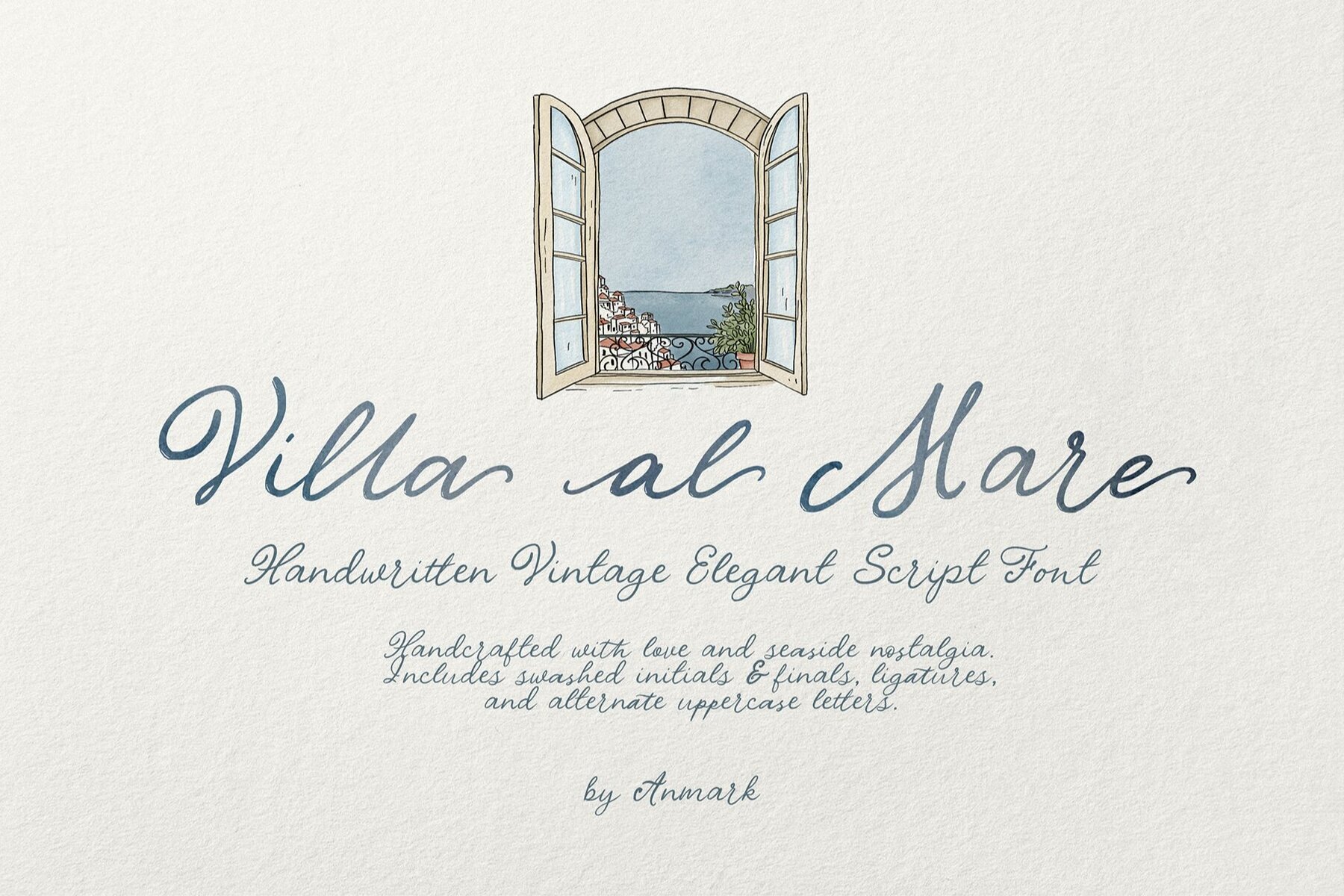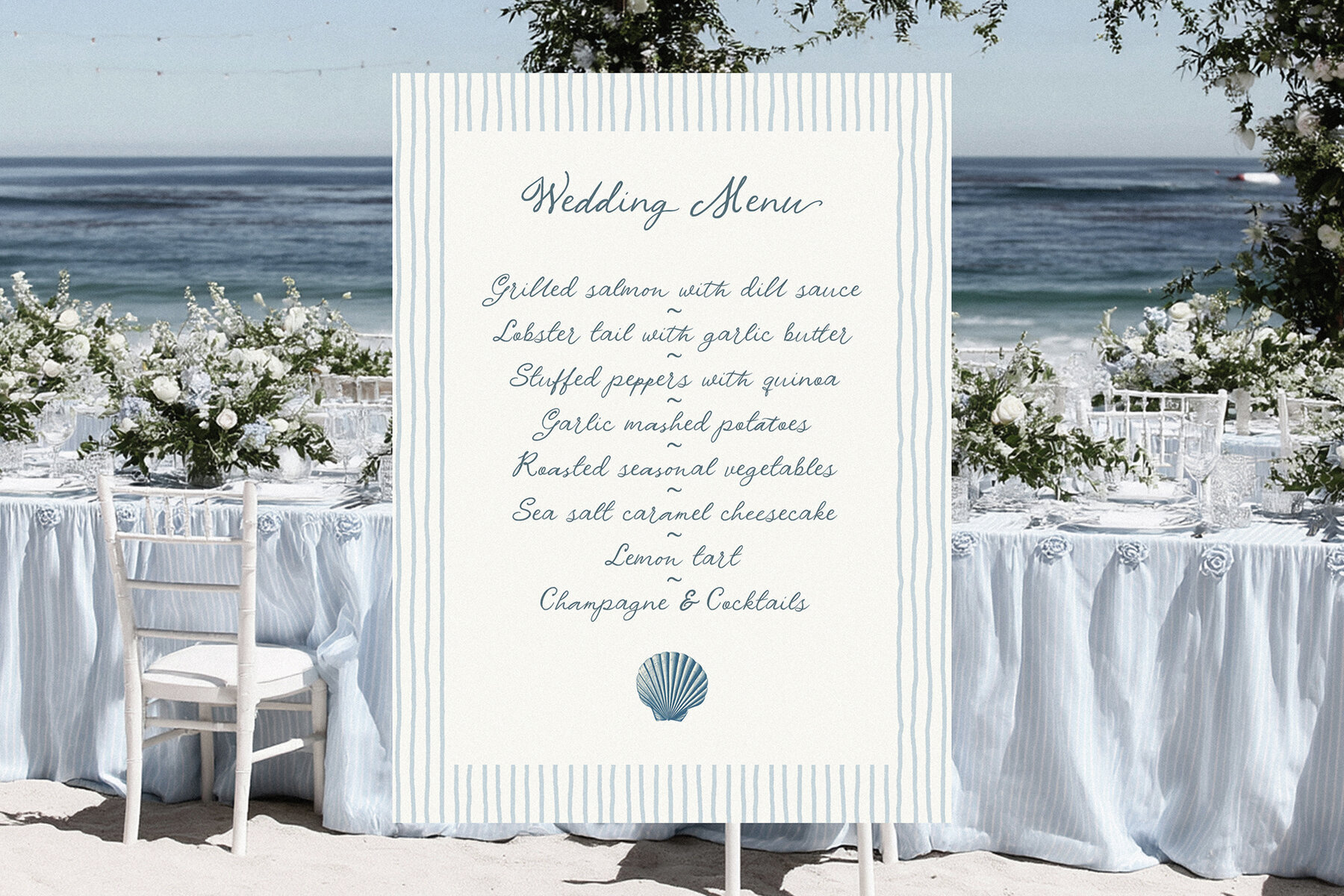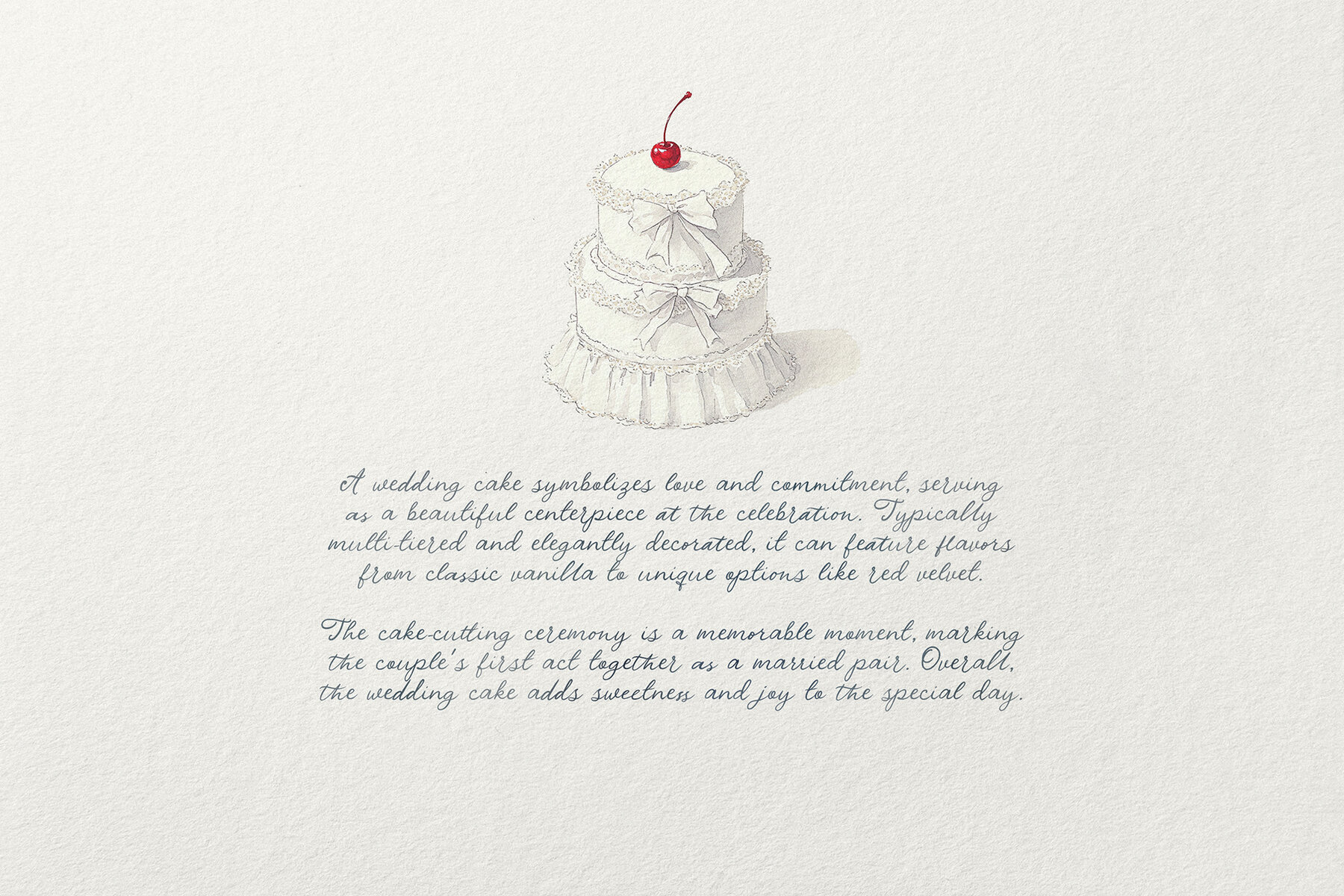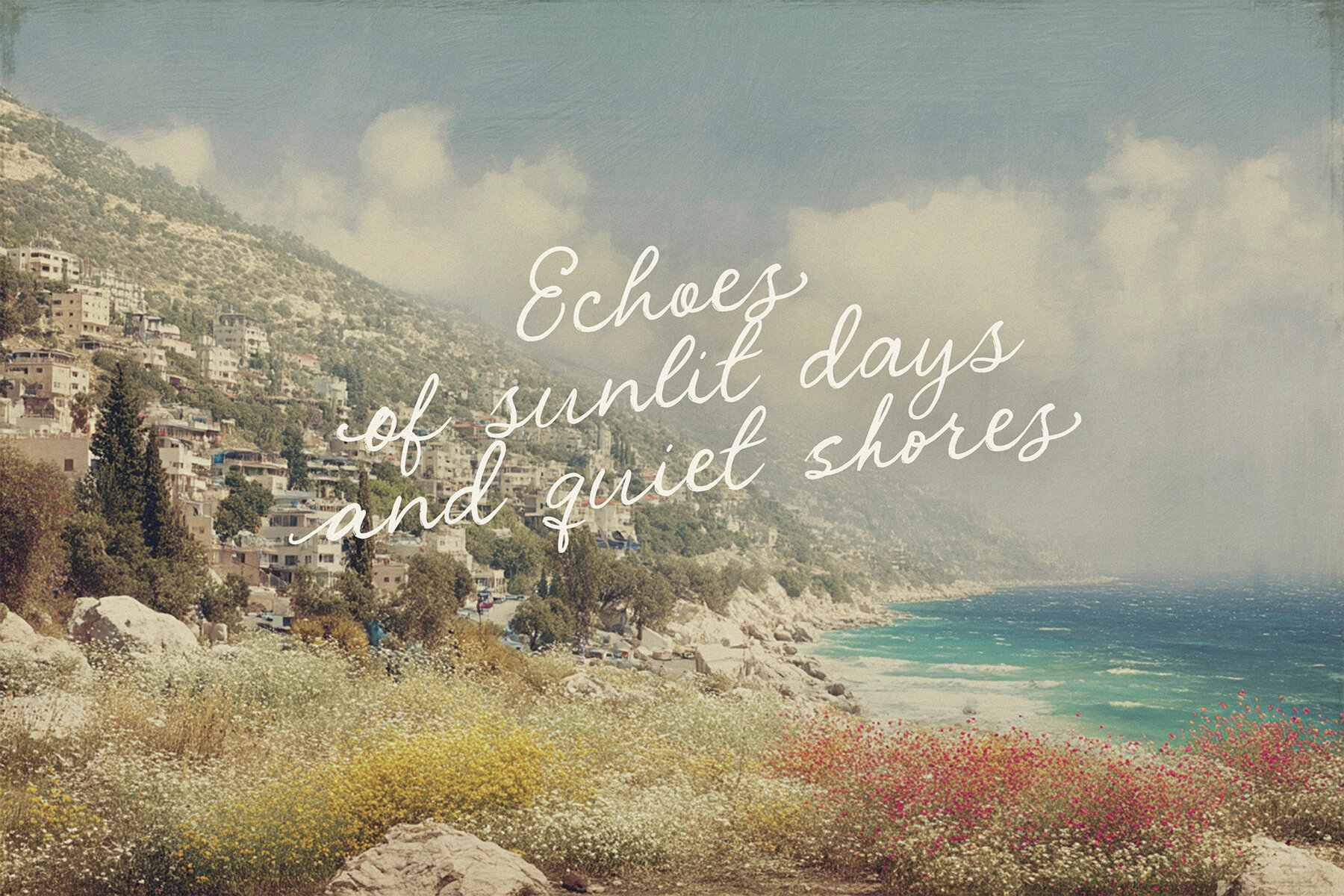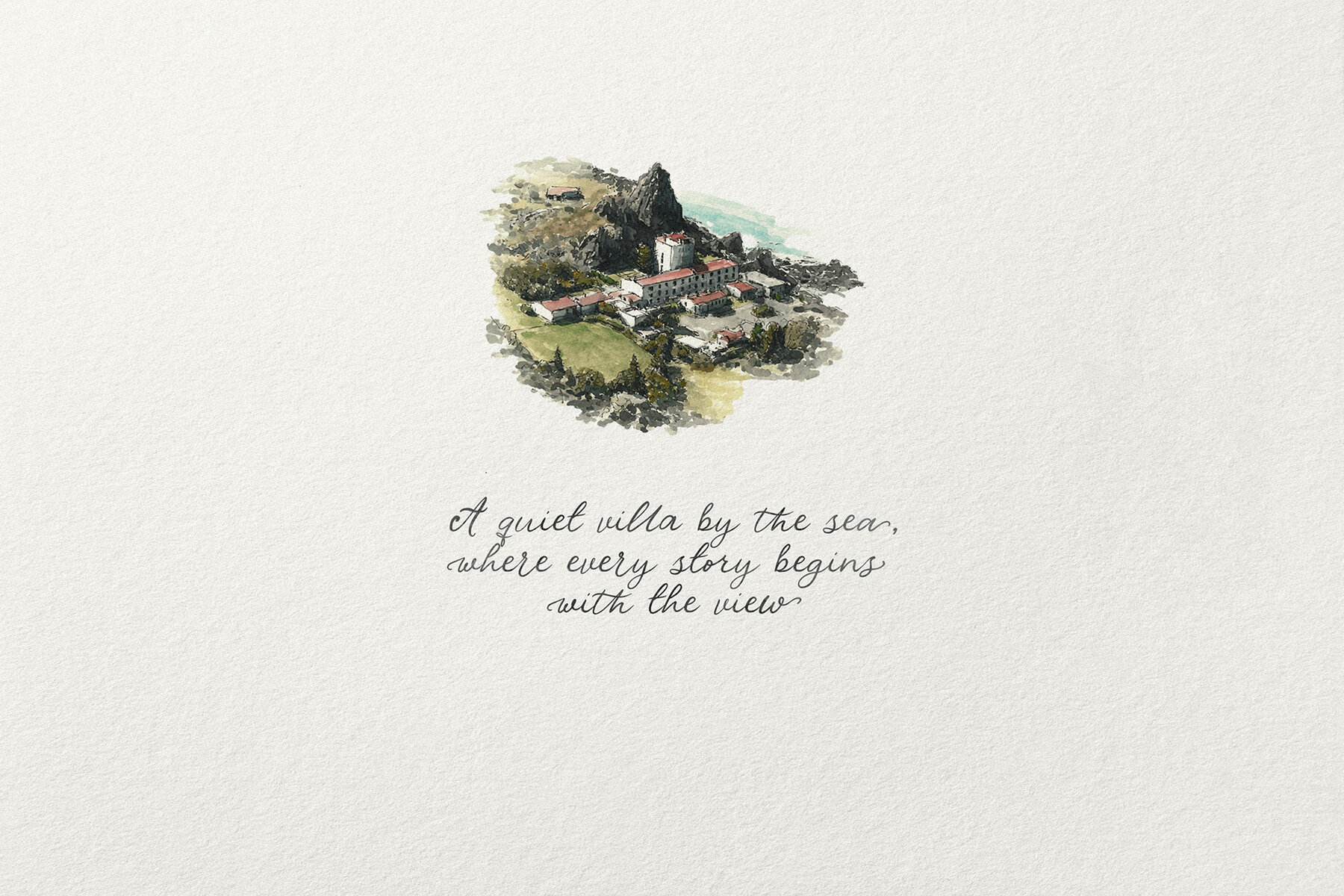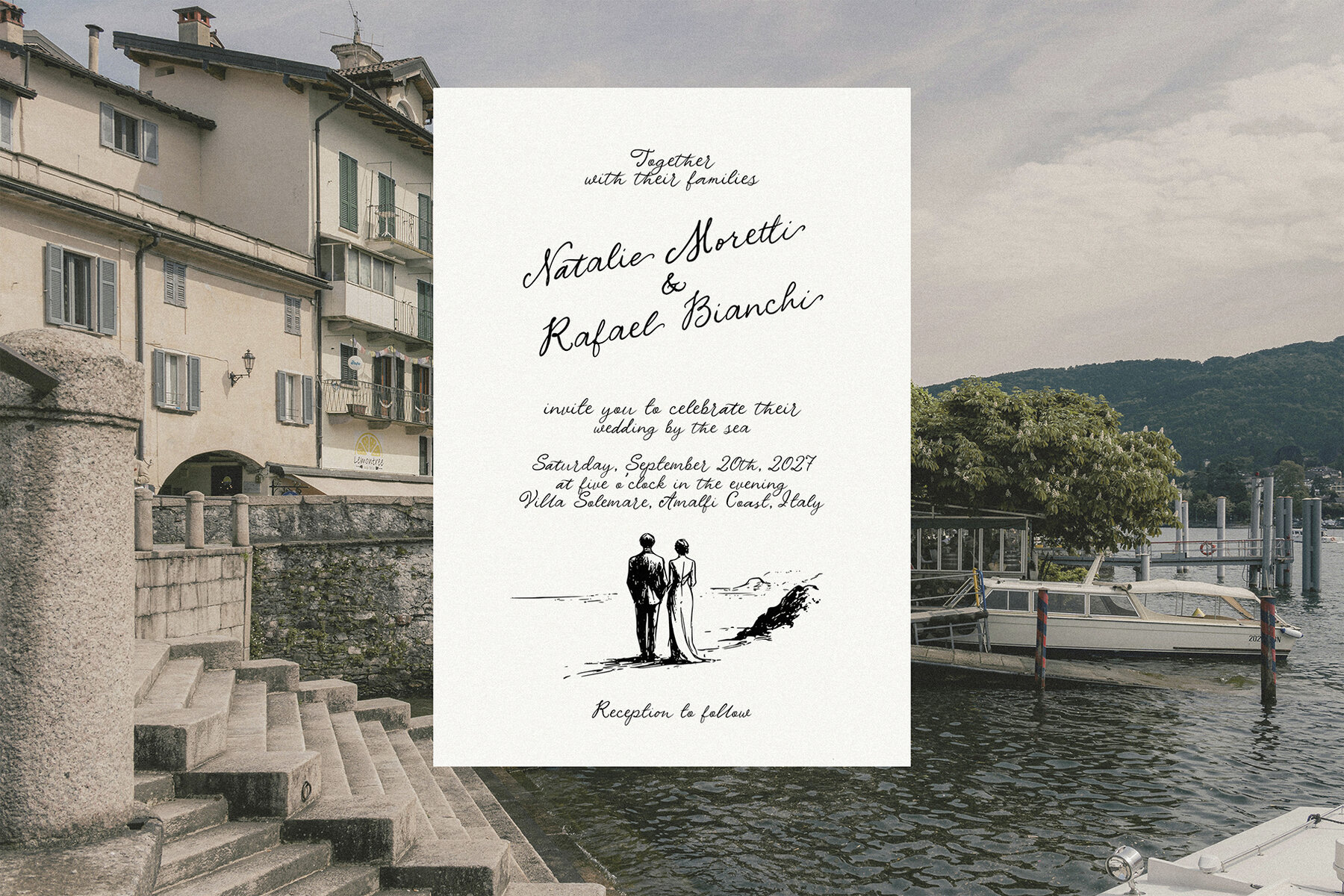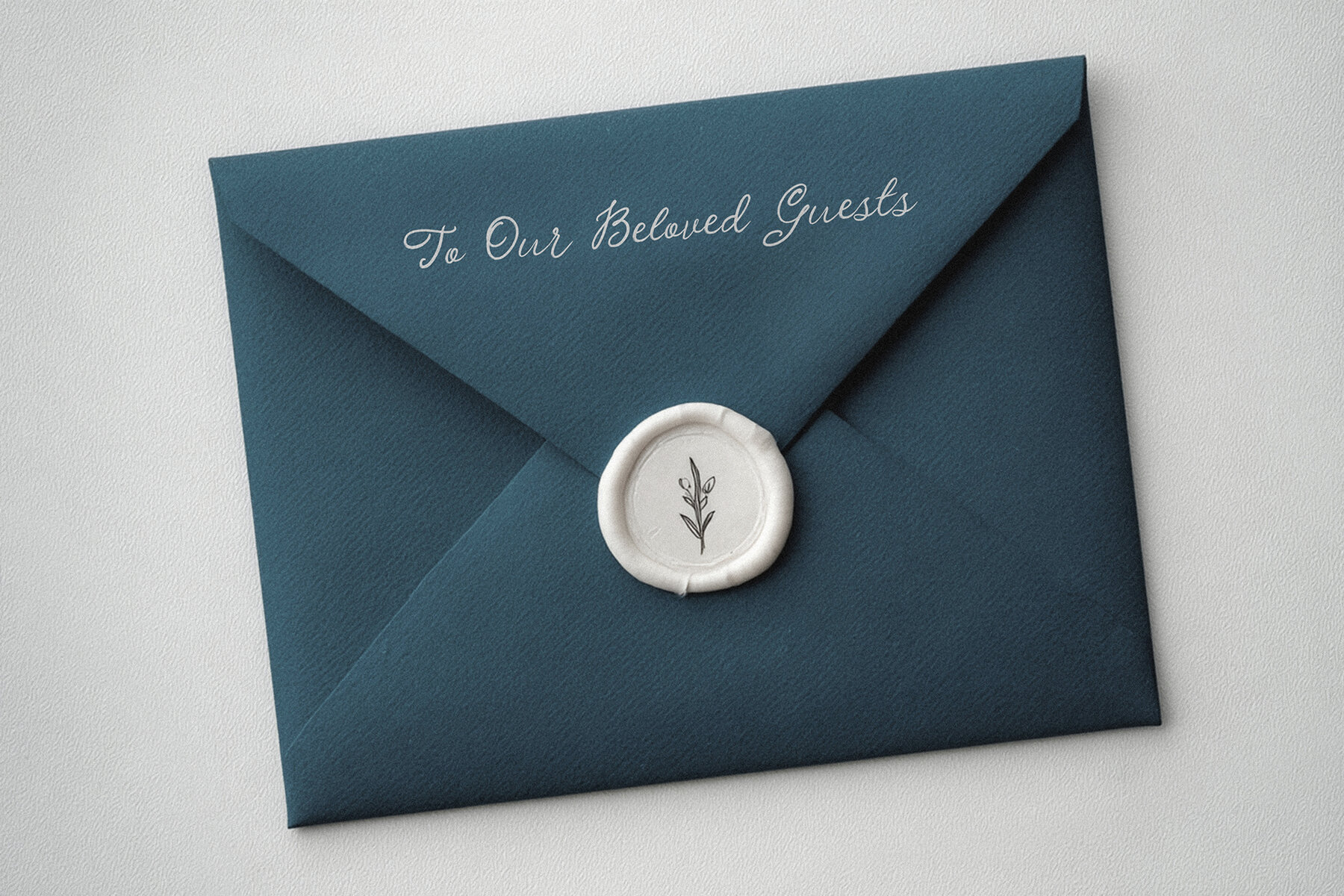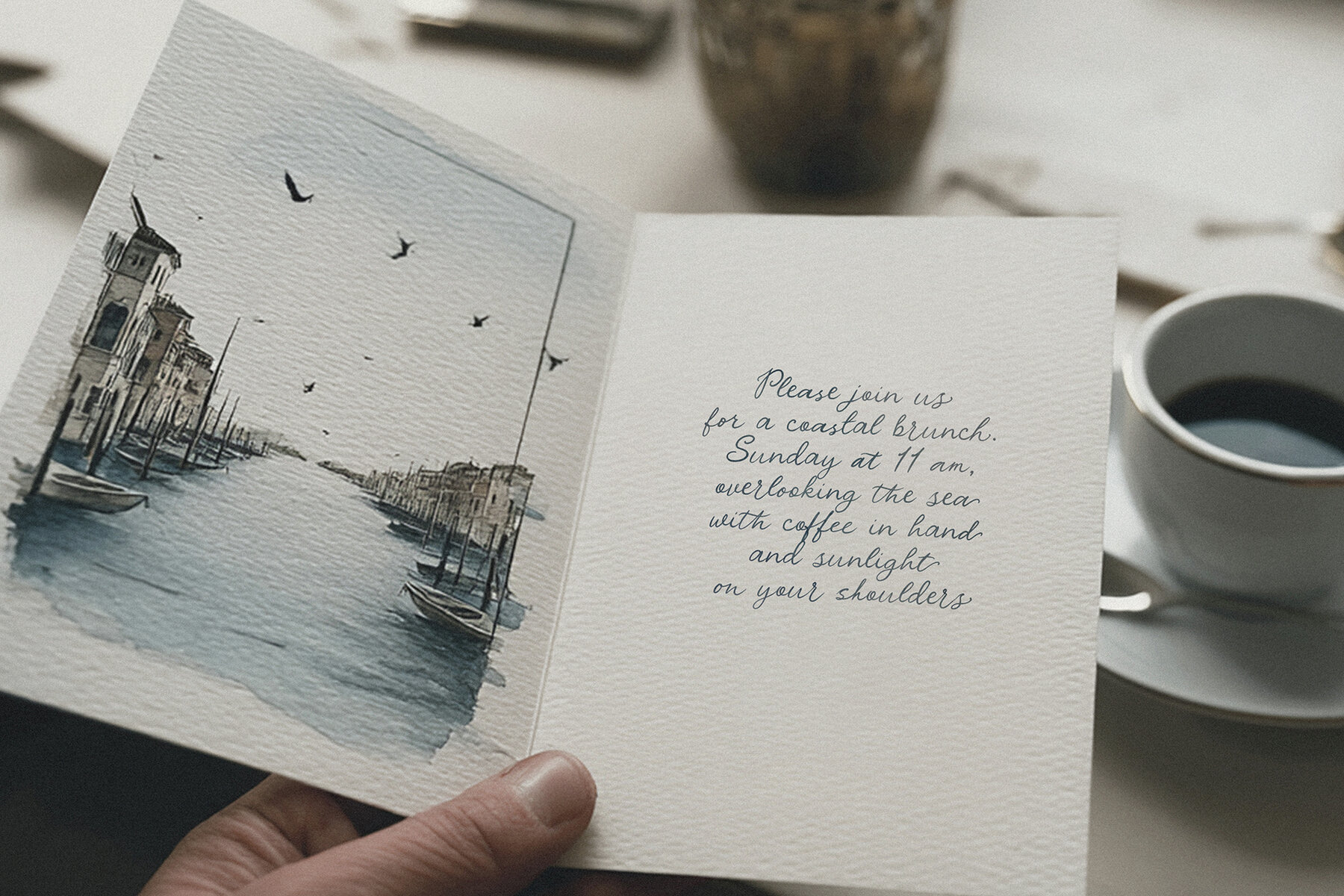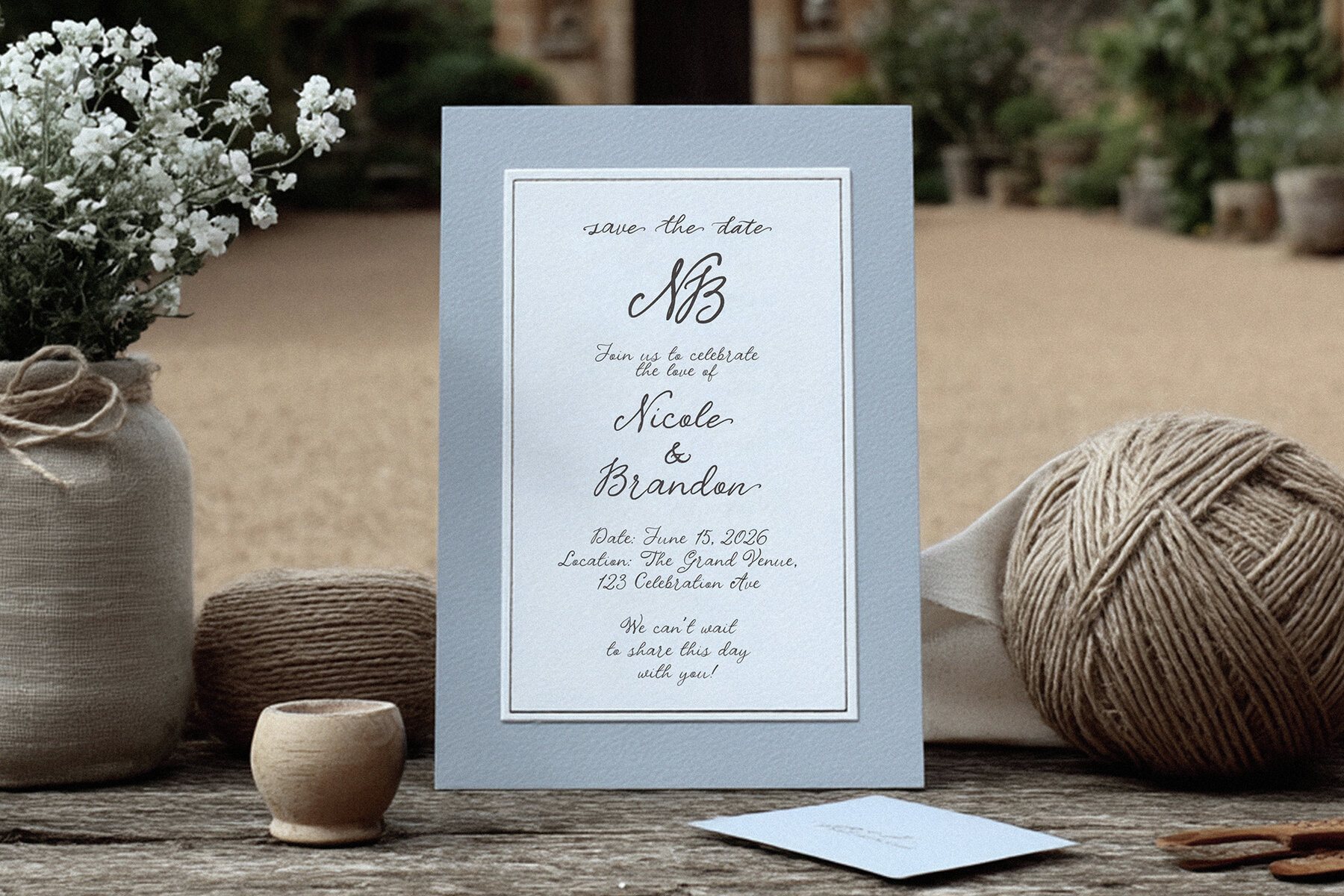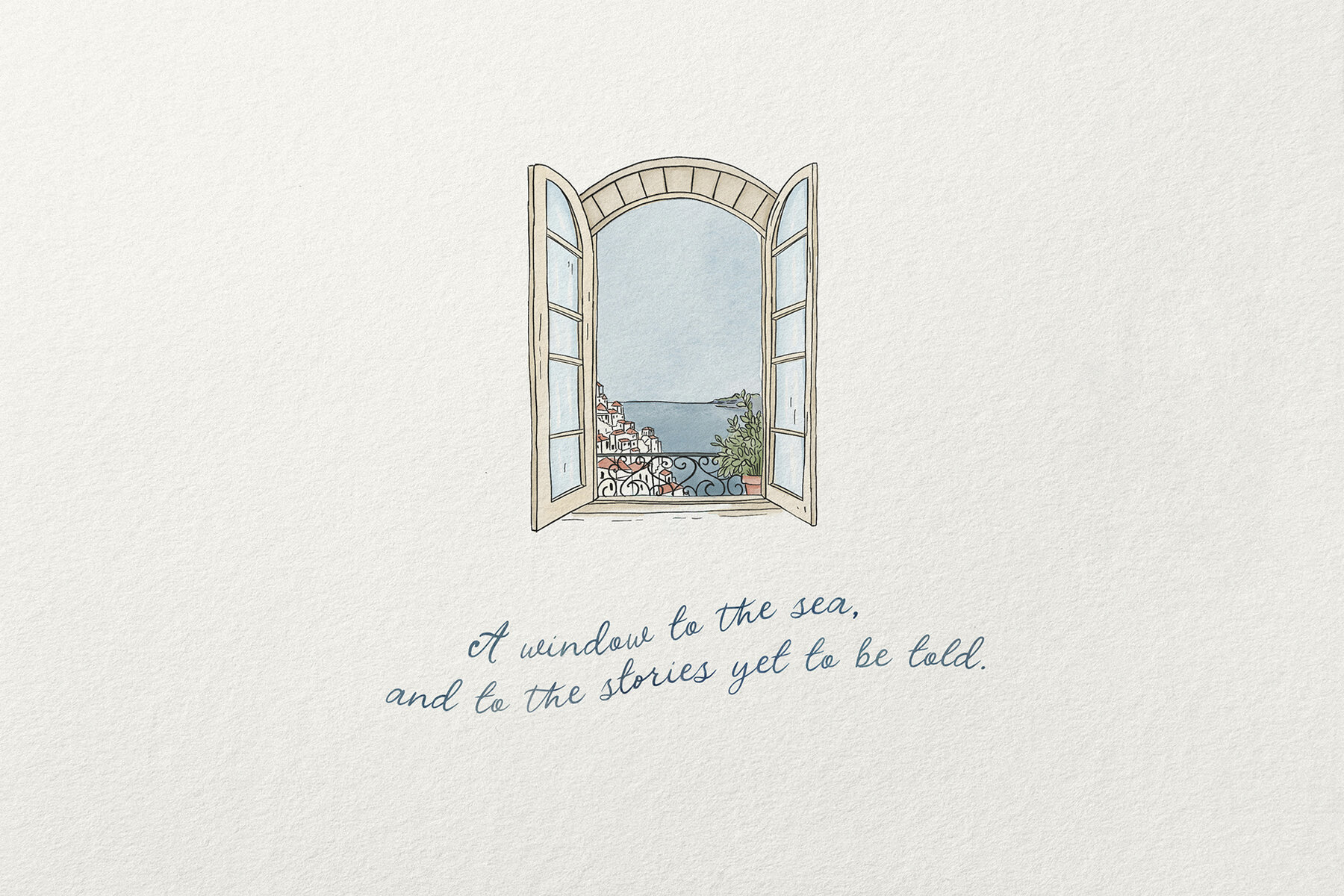
Villa al Mare Font
Villa Al Mare
Evoking the charm of handwritten letters from a sun-drenched seaside villa, Villa al Mare is a vintage-inspired handwritten calligraphy font that exudes timeless elegance. Offering a seamless blend of refinement and relaxation, its flowing lines and soft curves are ideally suited for projects needing a personal, artisanal touch. This font finds its forte in wedding stationery, logos, branding, packaging, menus, love letters, greeting cards, book covers, editorial design, and blog headers, infusing any project with romance and personality. Whether crafting a wedding invitation, branding a boutique, or designing a coastal-inspired logo, Villa al Mare infuses sophistication and warmth into every word.Villa al Mare: Handwritten Elegance with Mediterranean Flair